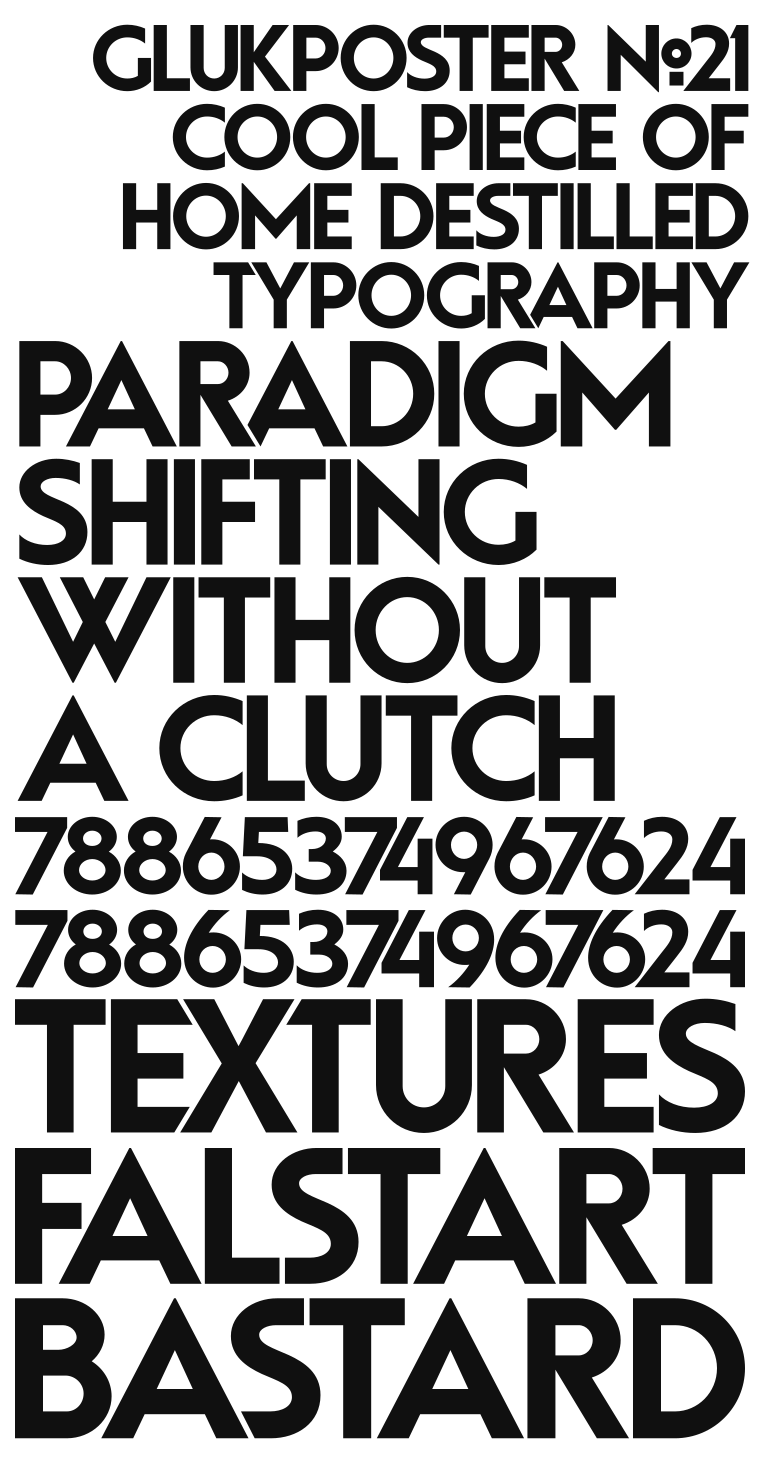
Geometrical font GlukPosterNo21 prepared for use in large text sizes (e.g. posters), containing many contextual alternates and stylistic sets.
- Font: GlukPosterNo21
Geometrical font GlukPosterNo21 prepared for use in large text sizes (e.g. posters), containing many contextual alternates and stylistic sets.